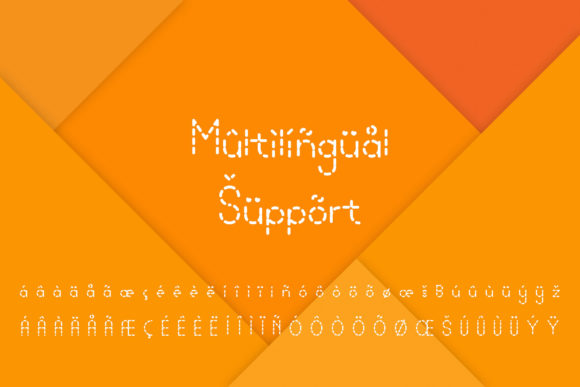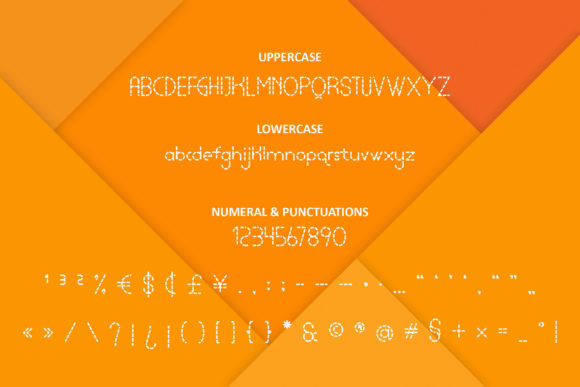
Introduction to Lamberto Dash Font
Imagine you’re working on a creative project, and you’re stuck on finding the perfect font to give it that extra oomph. You’ve spent hours scrolling through design resources, but nothing seems to match the vibe you’re going for. That’s where Lamberto Dash Font comes in – a high-quality, monoline display font that’s sure to elevate your design game.
With its bold and contemporary approach to classic lettering, Lamberto Dash Font is the perfect solution for designers looking to add a touch of sophistication to their work. Whether you’re working on a commercial project or just a personal passion project, this font is a valuable resource that’s sure to deliver.
Key Features of Lamberto Dash Font
- High-quality design for creative projects: The Lamberto Dash Font is a versatile and elegant font suitable for various creative projects, including branding, advertising, and digital media.
- Unique characteristics: The font’s distinctive dash-like strokes and rounded edges give it a modern and sophisticated look.
Honest Review: Lamberto Dash Font
As a designer, I’m always on the lookout for high-quality design resources that can elevate my creative projects. The Lamberto Dash Font caught my attention with its sleek and modern aesthetic, making it perfect for a wide range of applications.
However, I did encounter a few limitations with the Lamberto Dash Font. The font may not be suitable for smaller text sizes, as the characters can become slightly distorted. Additionally, the font family is limited, which may not be ideal for designers working on complex projects.
The Lamberto Dash Font is perfect for various creative projects, such as logos, branding materials, social media graphics, and even presentations. Its high-quality design makes it a great choice for any project that requires a professional look.